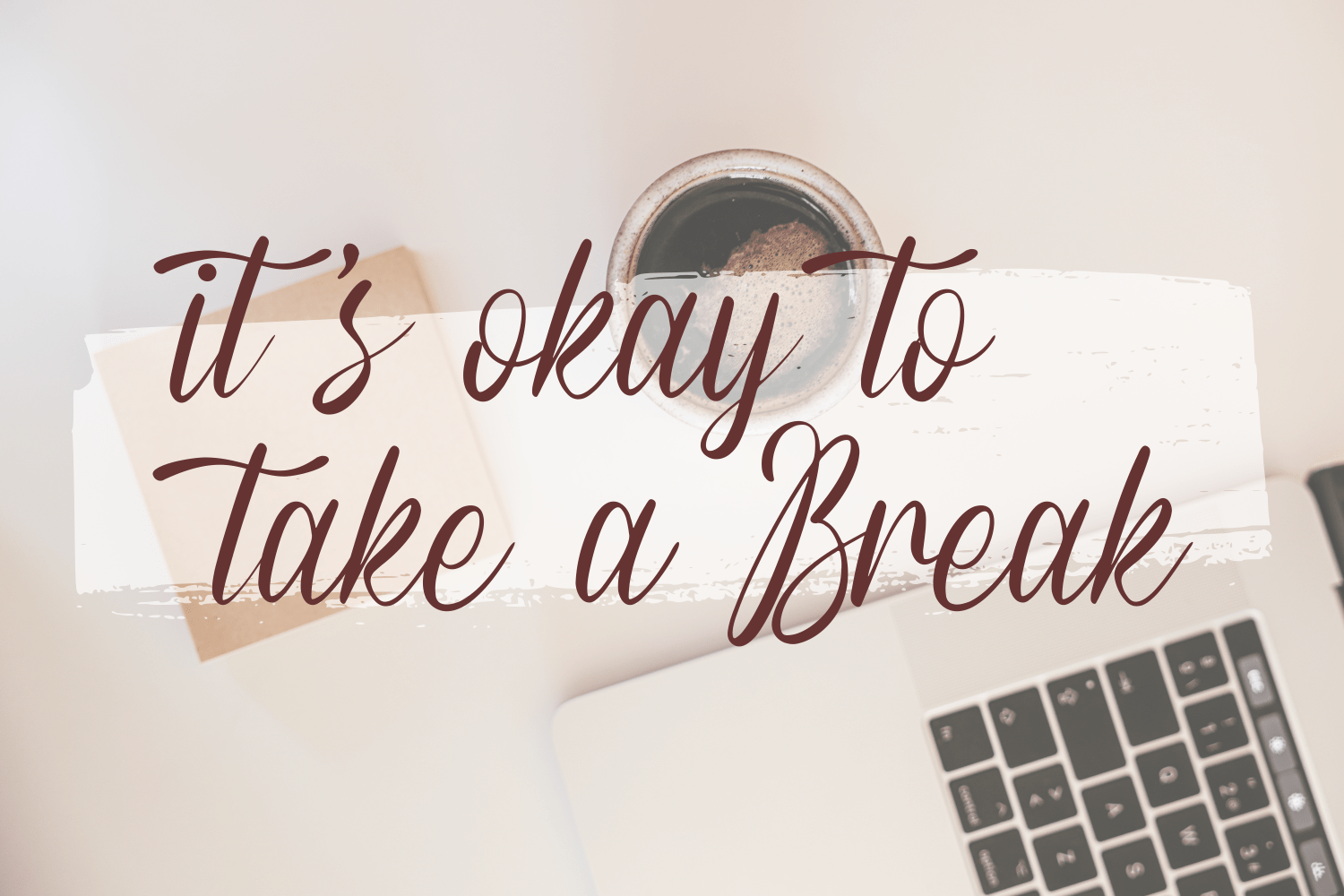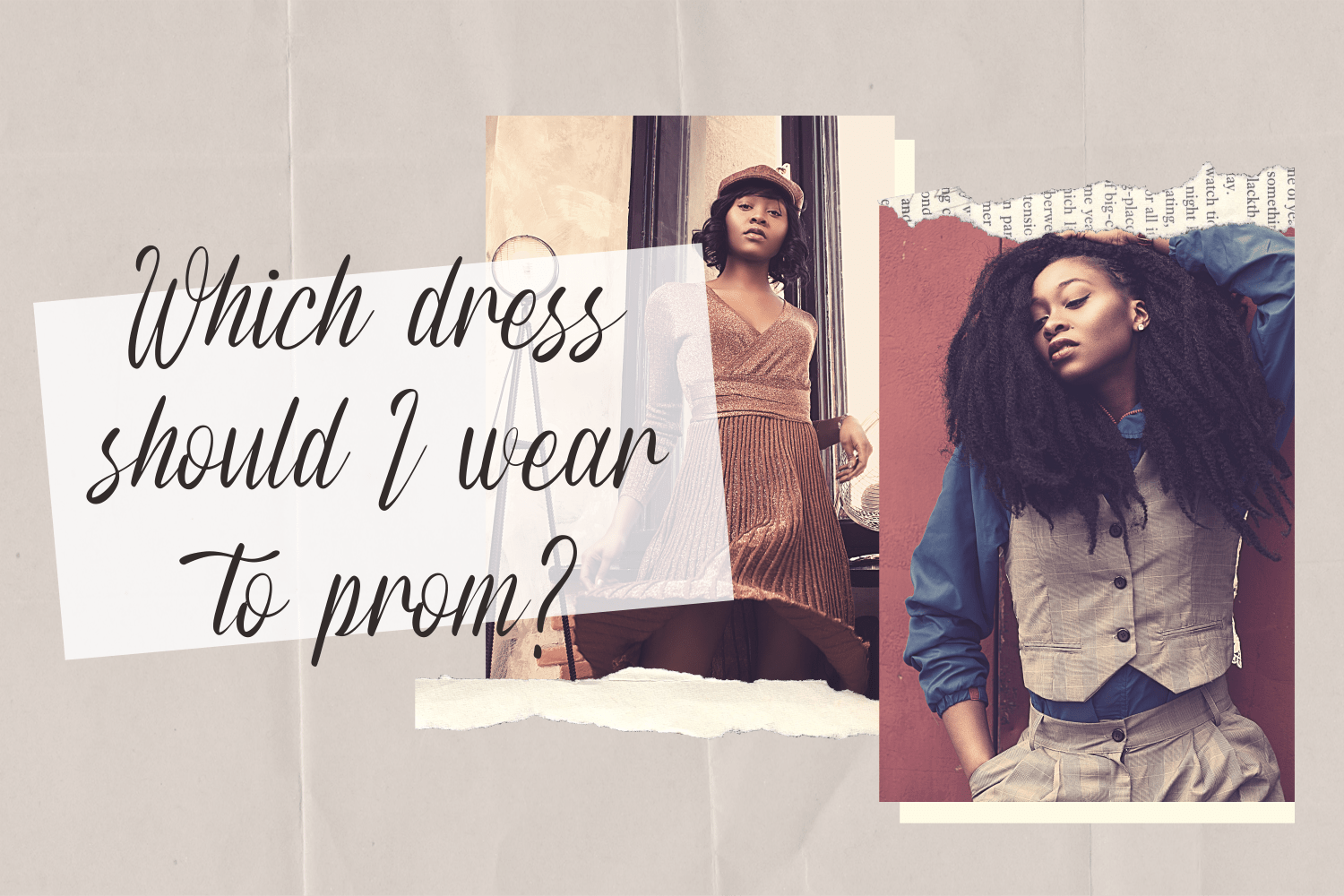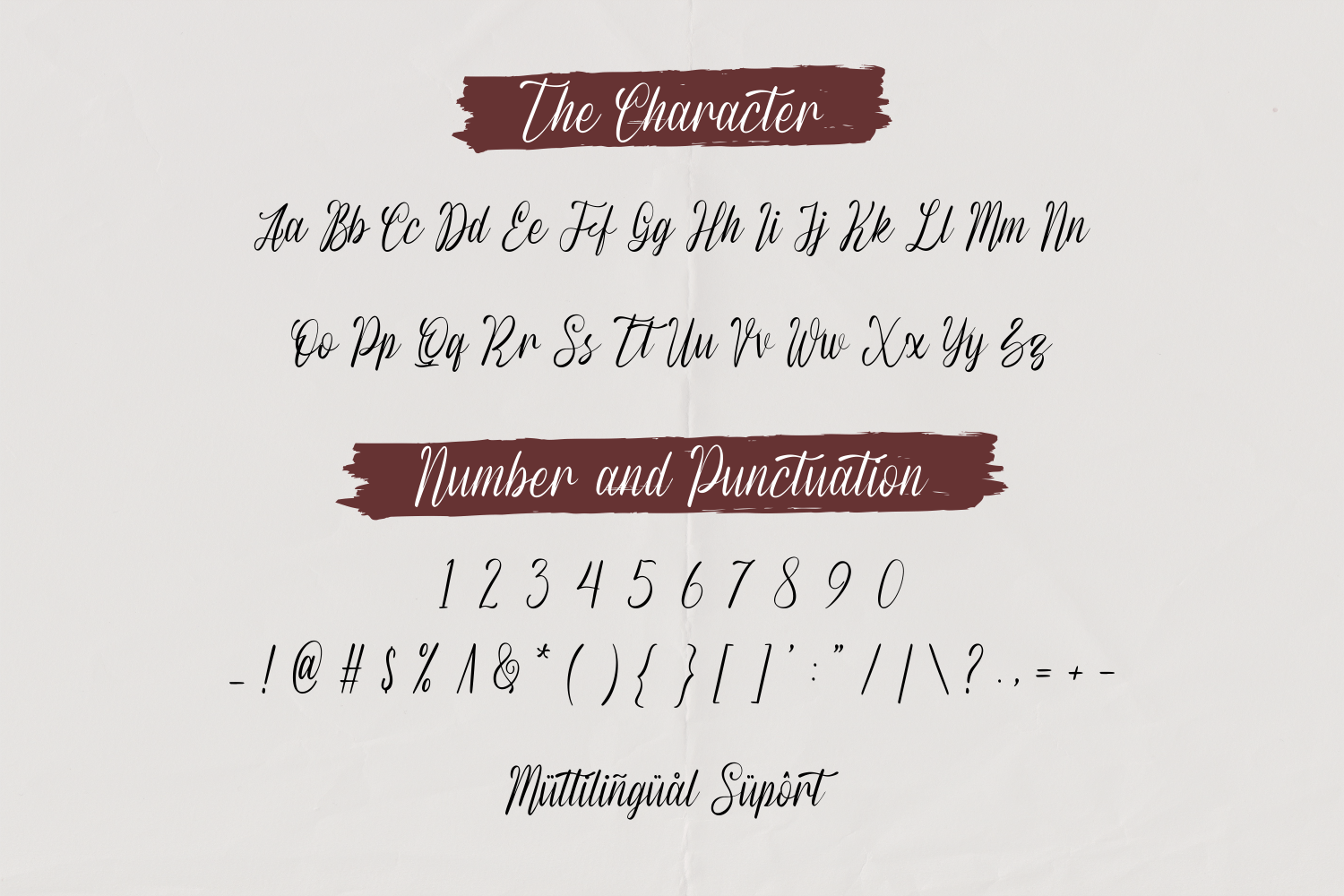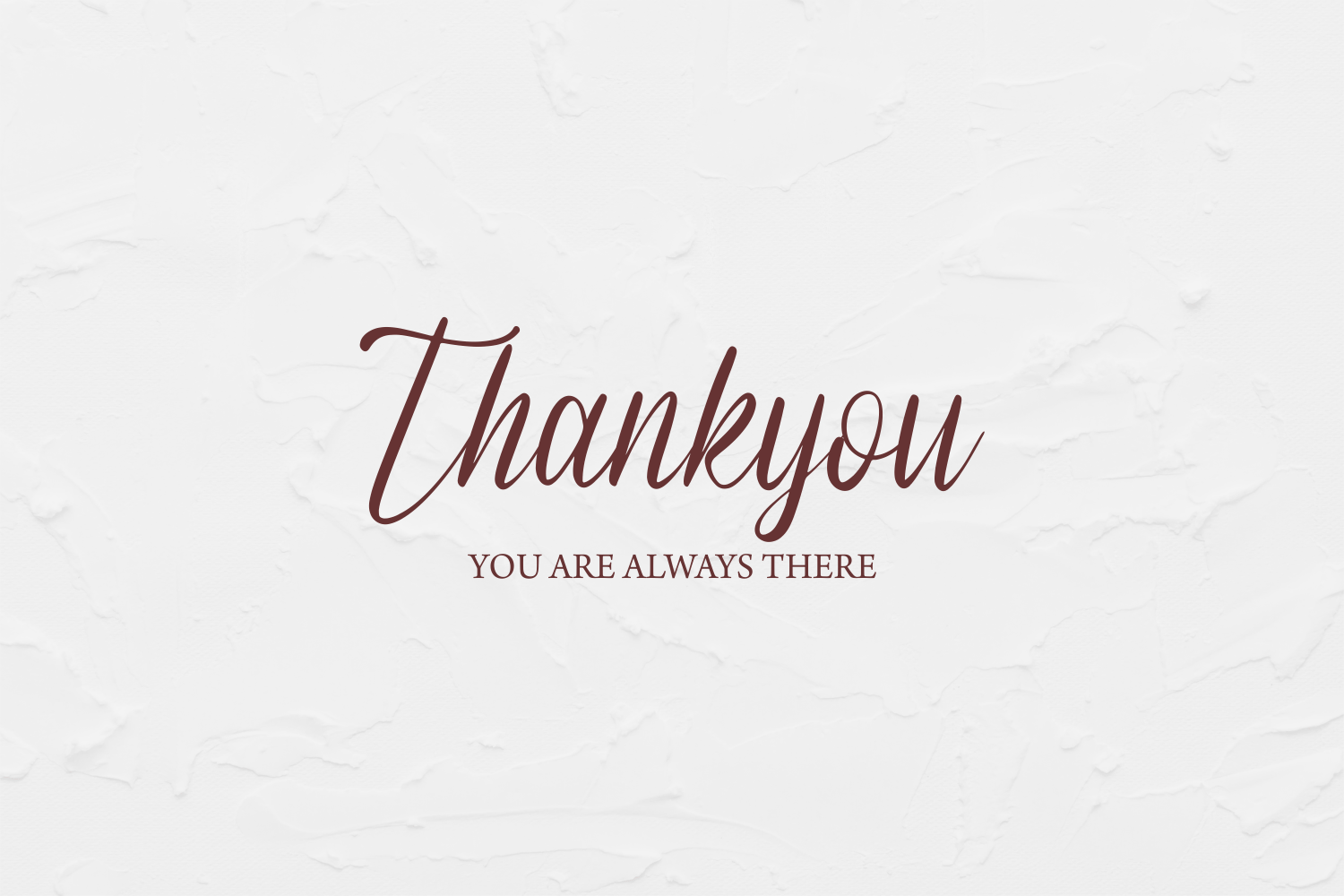
Letudown Script Font is a fancy and elegant handcrafted font that was created to impress your audience and make your branding shine. Make your projects dance with this elegant and wonderful font wherever you use it. It works great on headings, logos, ads, printed quotes, packaging, and even your website or social media branding.